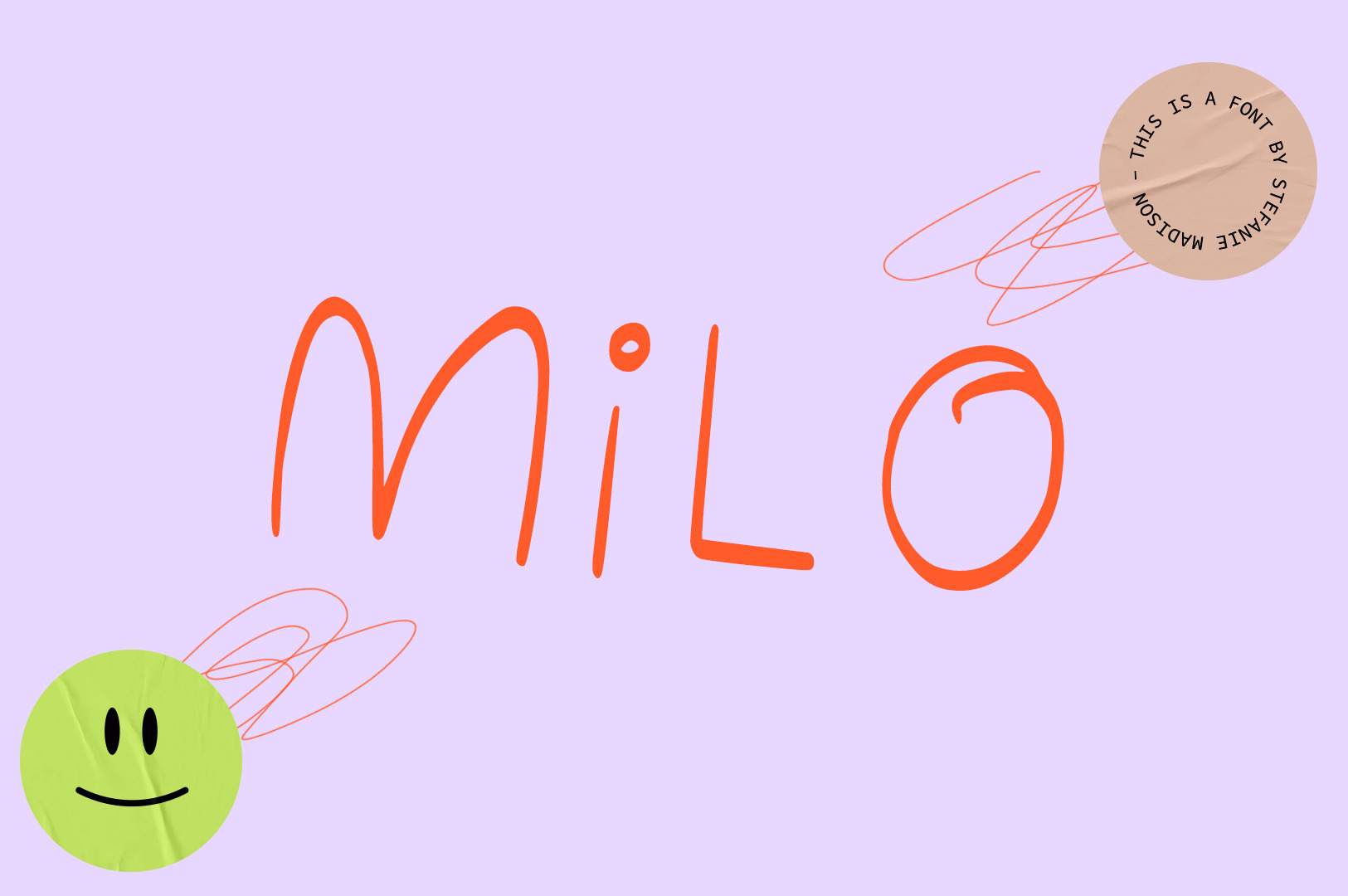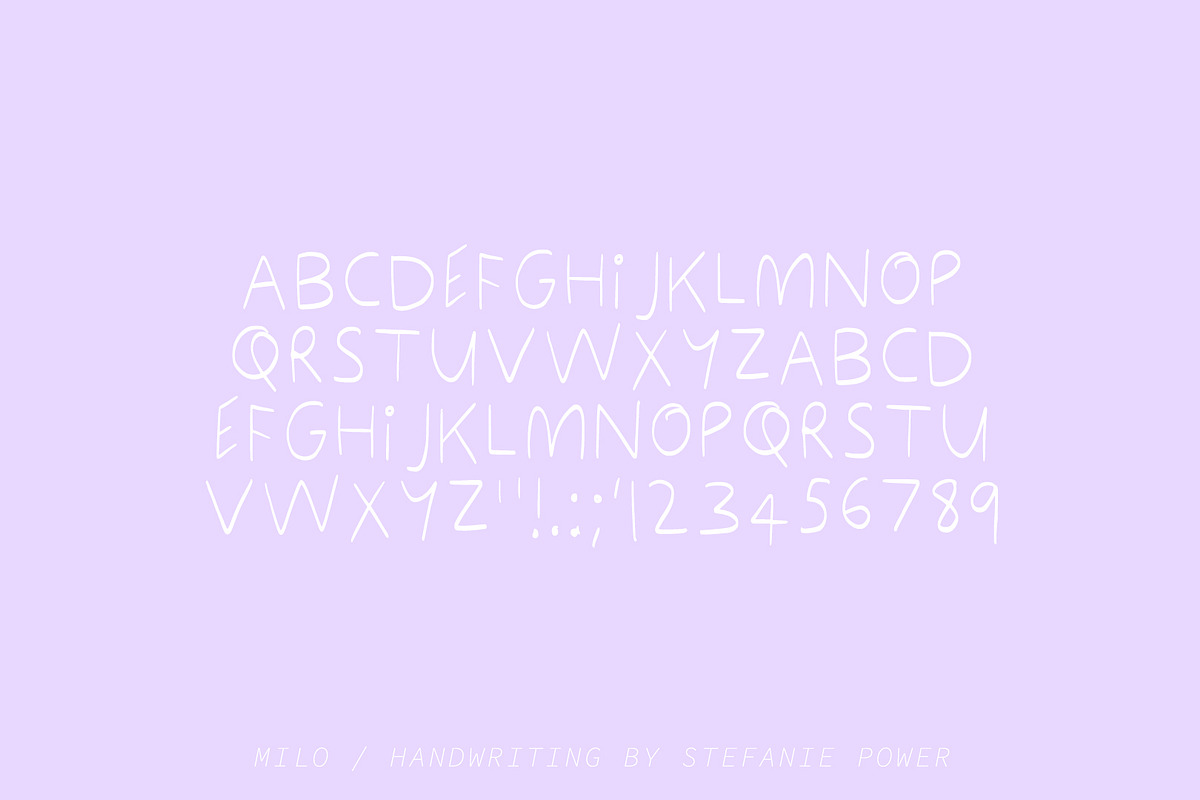
MILO | Handwritten Font
Introducing 'Milo' - an all caps handwritten font.
Milo • A handwritten font containing uppercase characters and a range of basic punctuation and numbers.